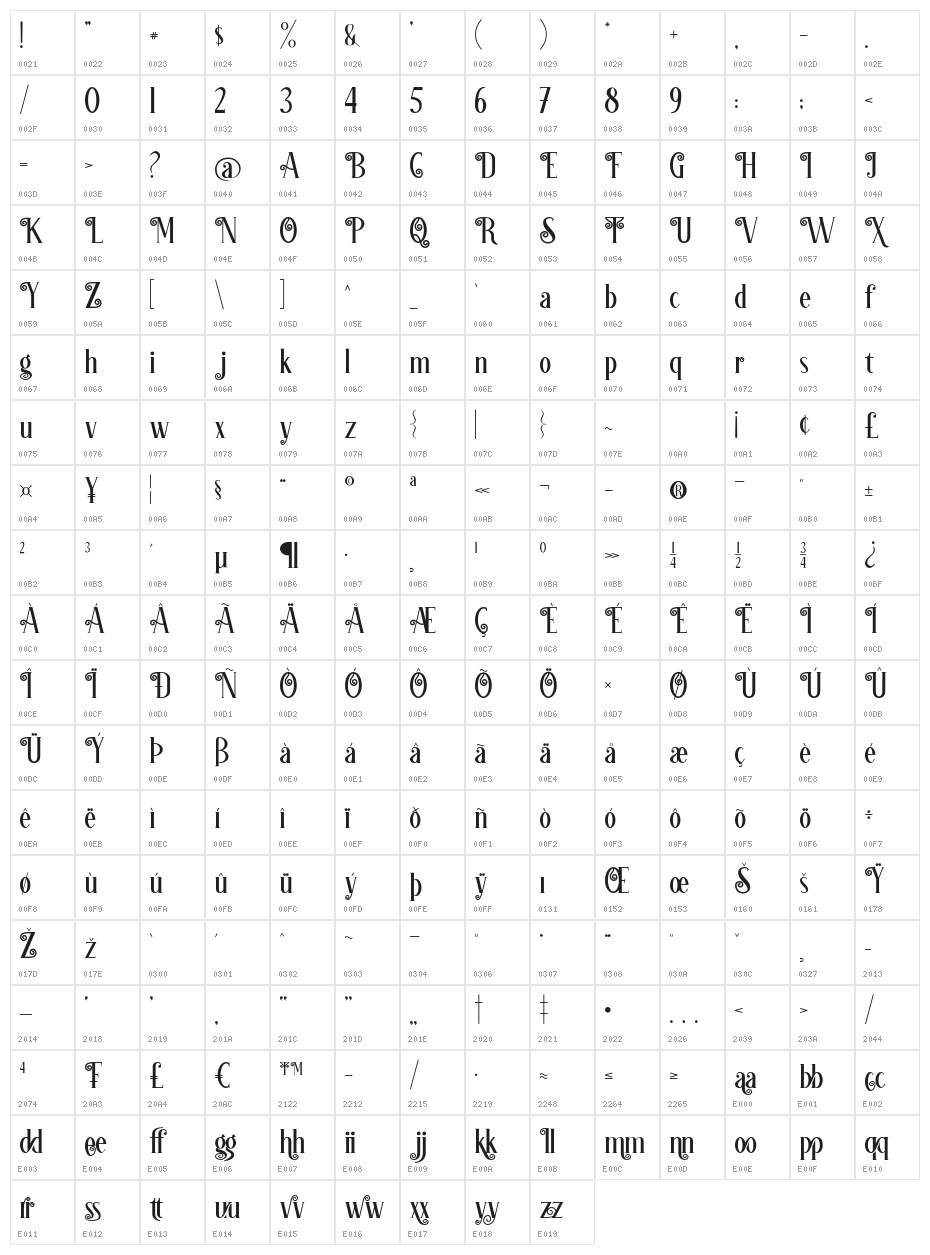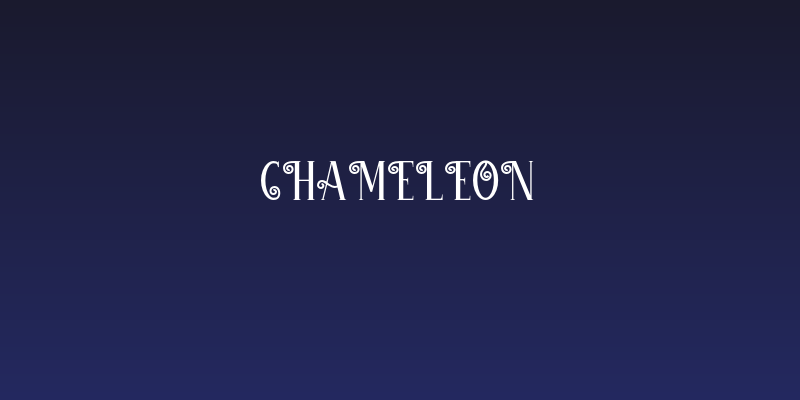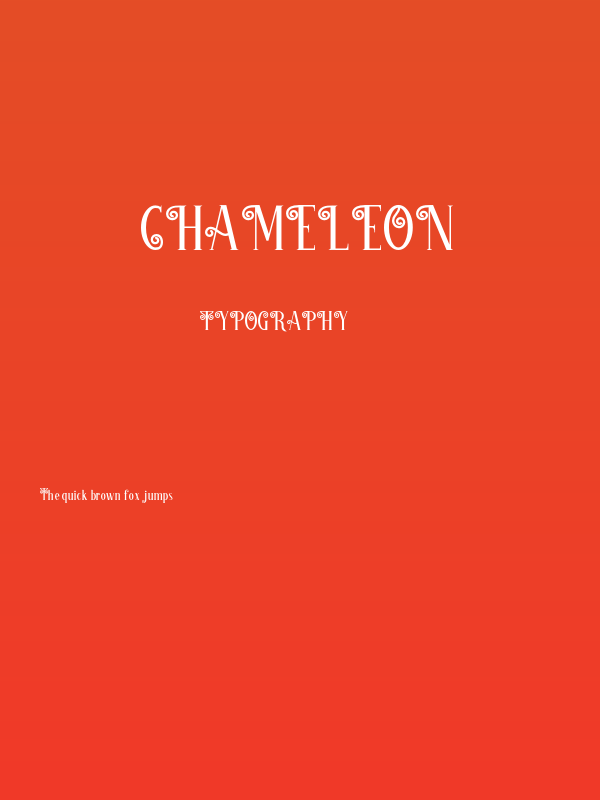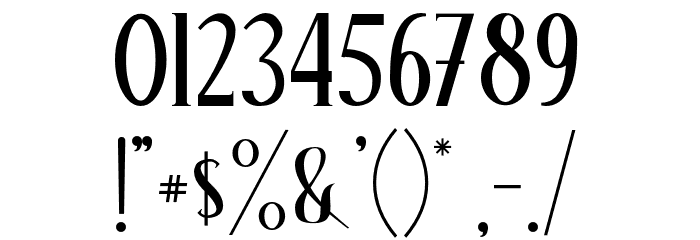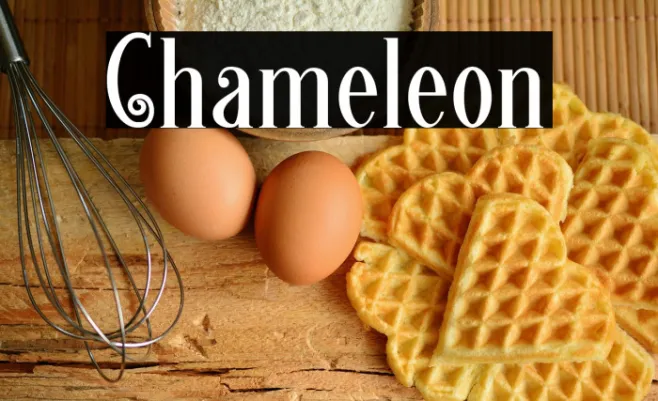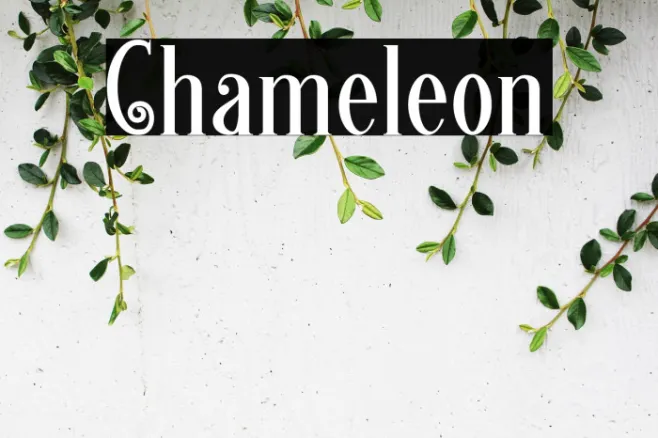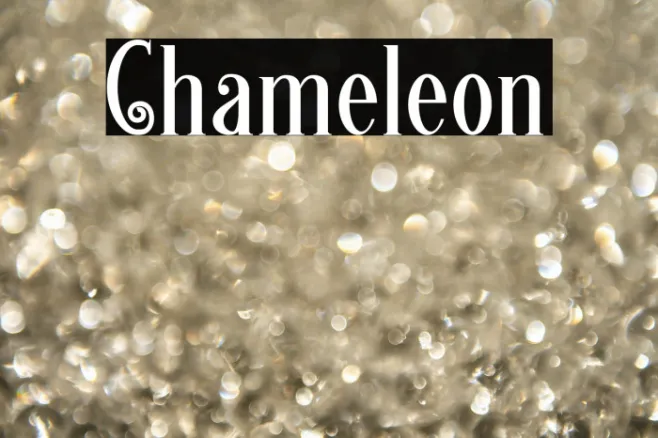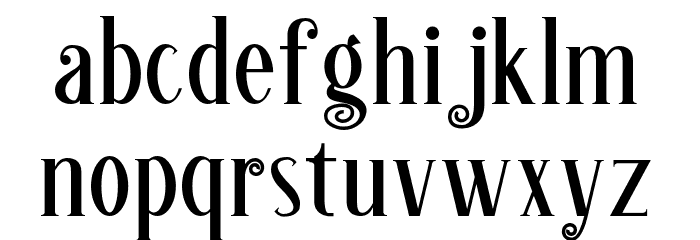
Chameleon Font
Chameleon Description
This font features a whimsical and decorative style, characterized by its playful swirls and curls on certain letters, particularly noticeable in the uppercase set. The design combines elements of both classic serif and decorative fonts, giving it a unique and artistic flair. The uppercase letters are bold and ornate, while the lowercase letters maintain a more traditional serif appearance with subtle embellishments. The numerals are consistent with the serif style, providing a cohesive look across all characters. Special characters are designed with the same attention to detail, ensuring they complement the overall aesthetic.
| Proposed Projects | Ideal for creative projects such as invitations, posters, and branding materials that require a touch of elegance and playfulness. |